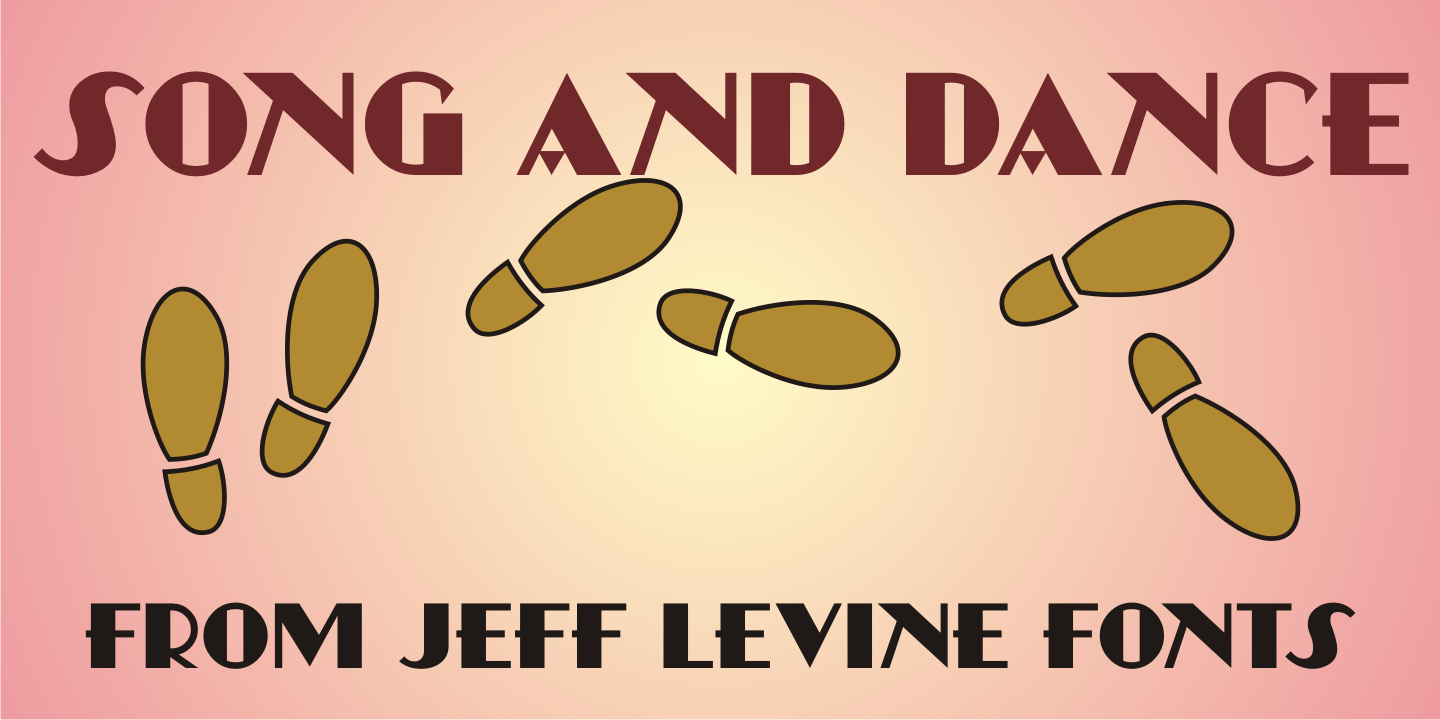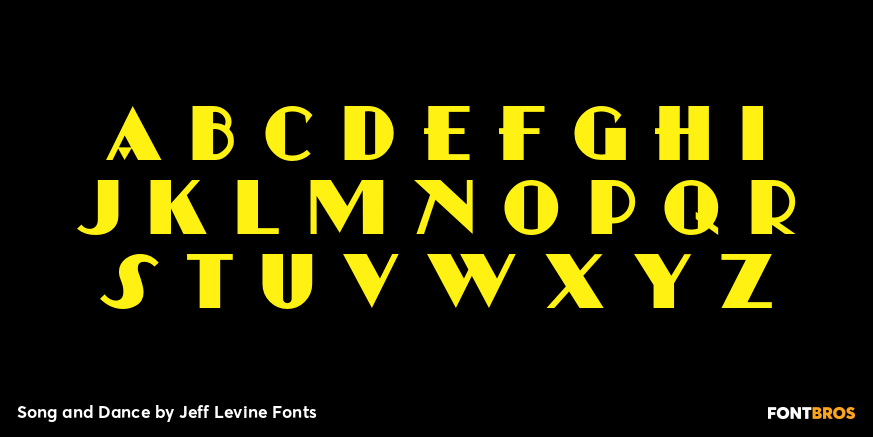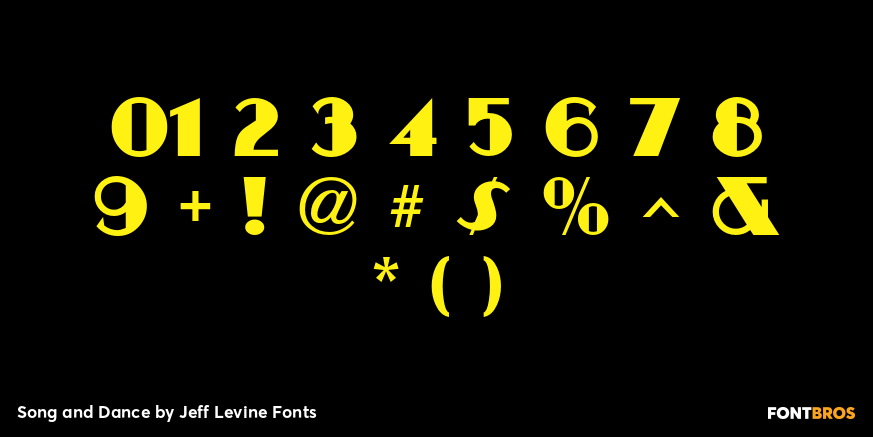
Song and Dance
The hand lettering of a piece of 1930s sheet music’s title has once more yielded an interesting take on the popular “thick and thin” lettering of the Art Deco period.